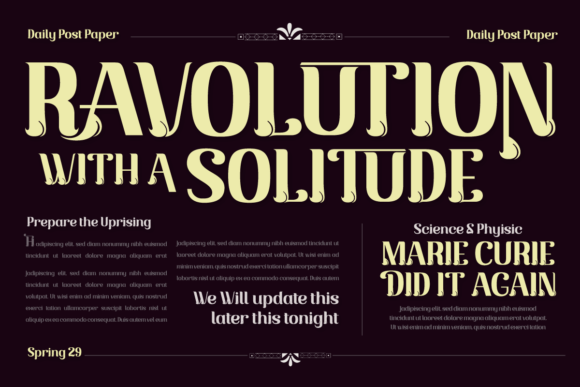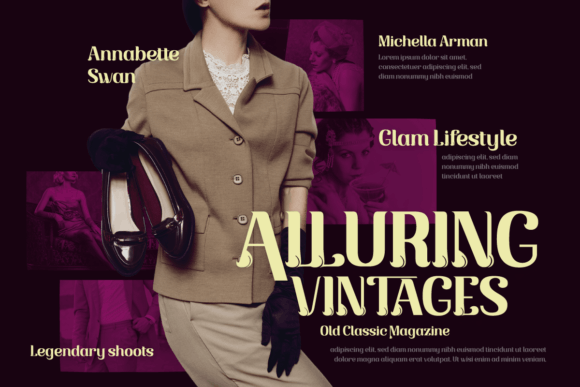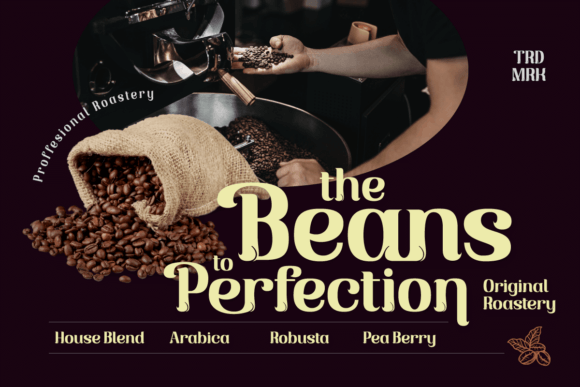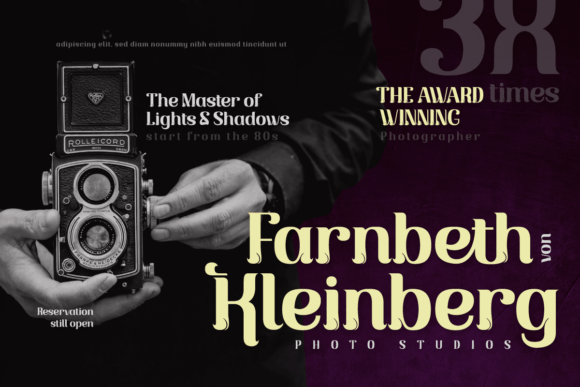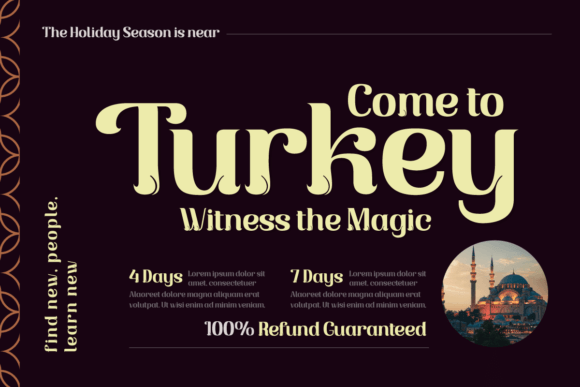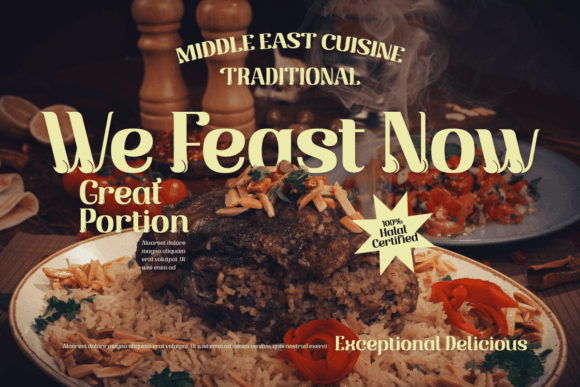
Introduction to Piskote Font
Piskote, is an eye-catching display font that brings a touch of elegance to any of your projects.
With a theme that is relaxed but still exudes elegance, Piskote is the perfect solution for creating designs that catch attention and give off a signature charm Piskoteโs excellent features will make your designs even more special.